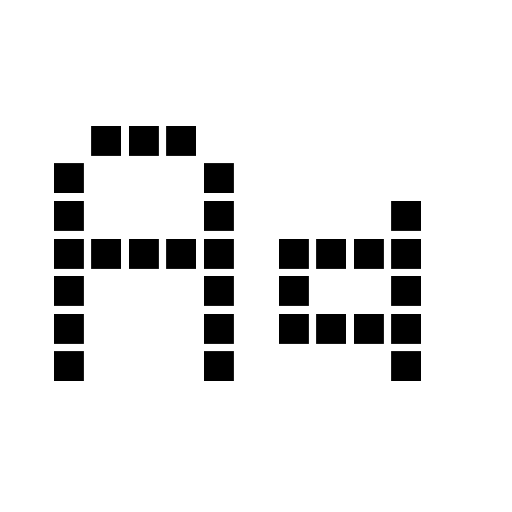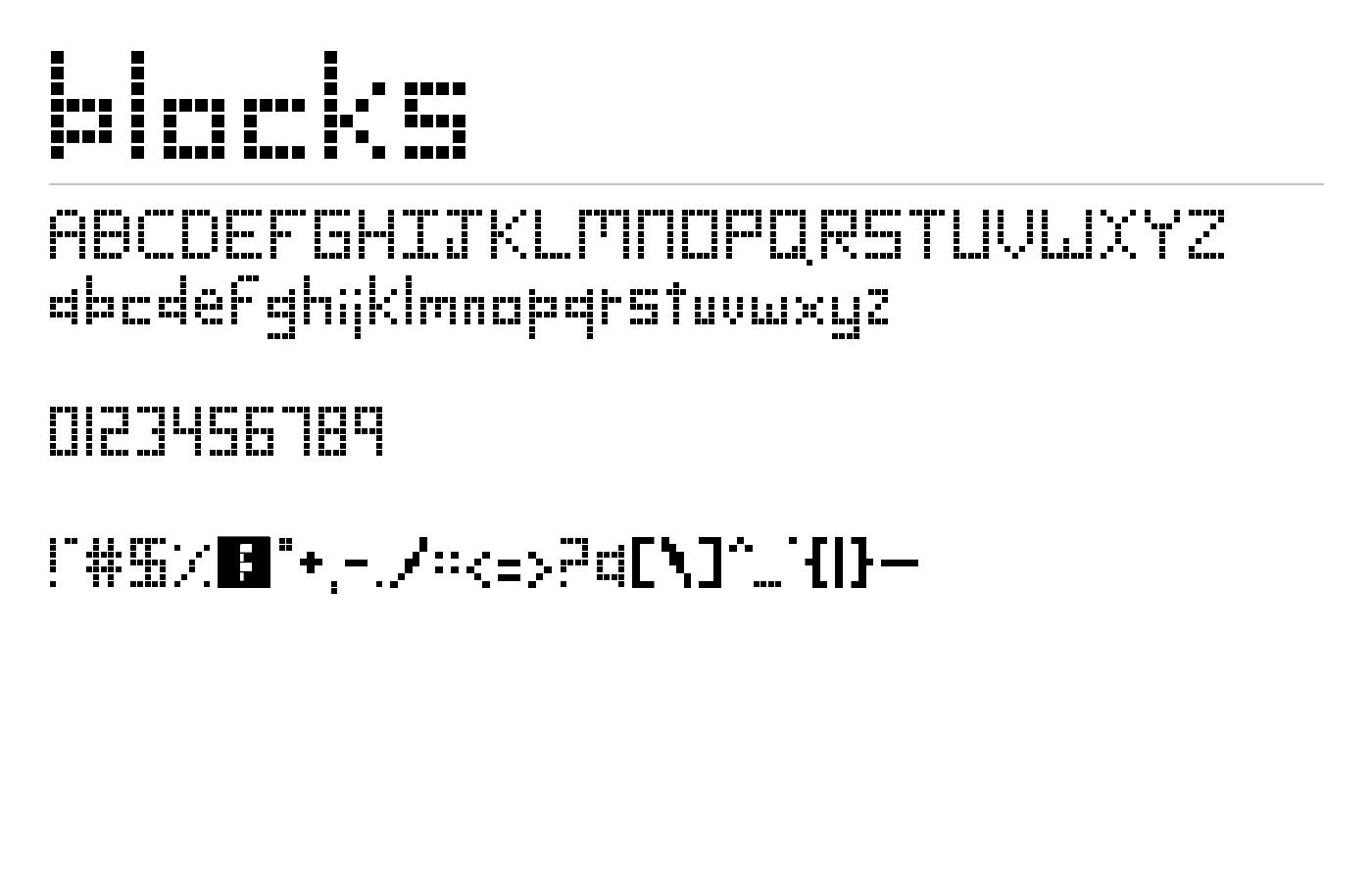
Blocks Font is a distinctive monospace pixel-style typeface made entirely of small square blocks, creating a retro digital or tech-inspired look. Its geometric, modular design with consistent weight and spacing makes it ideal for use in digital interfaces, coding environments, or modern graphic projects that want to evoke a minimalist, futuristic vibe. This font works best for headlines, logos, or display purposes where a bold, tech-savvy impression is needed.
| Font family | blocks Font |
| Designer | samhorne2 |